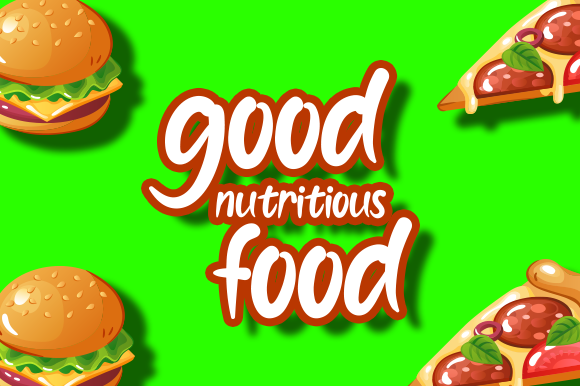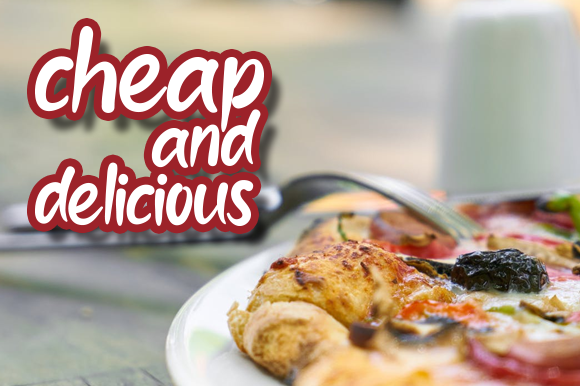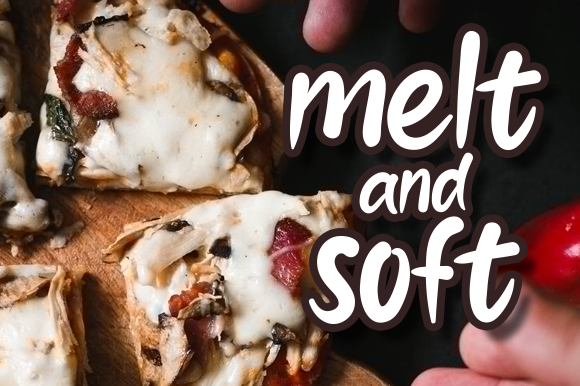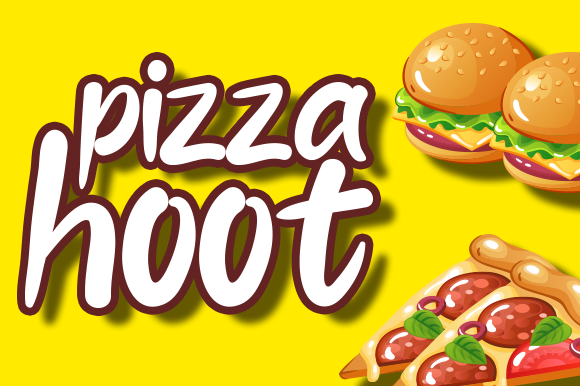
Introduction to Pizza Hoot Font
Pizza Hoot is a cute and casual handwritten font with an incredibly friendly feel.
This fantastic font is best suited for headlines of all sizes, as well as for blocks of text that have both maximum and minimum variations Whether it’s for web, print, moving images or anything else – Pizza Hoot will look spectacular.
Pizza Hoot Font offers exceptional quality and versatility, making it a valuable addition to your design toolkit. Whether you’re creating for personal projects or commercial use, Pizza Hoot Font delivers professional results.